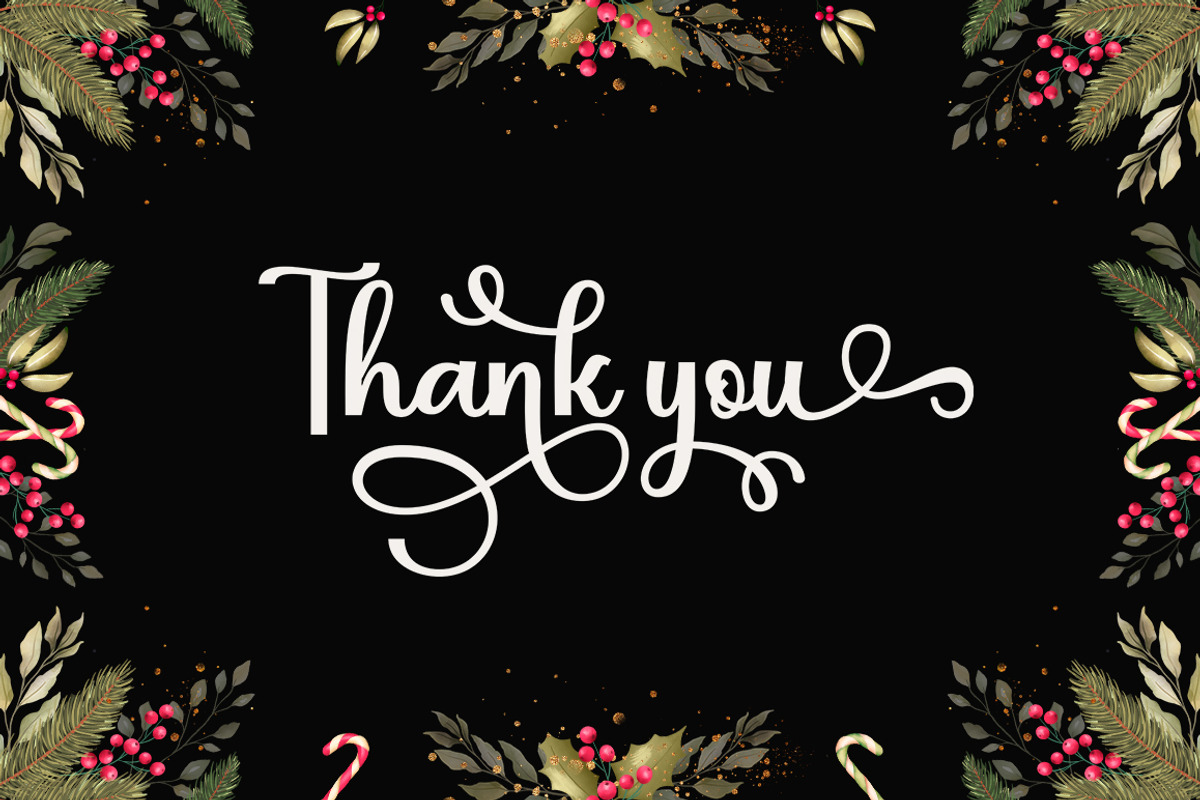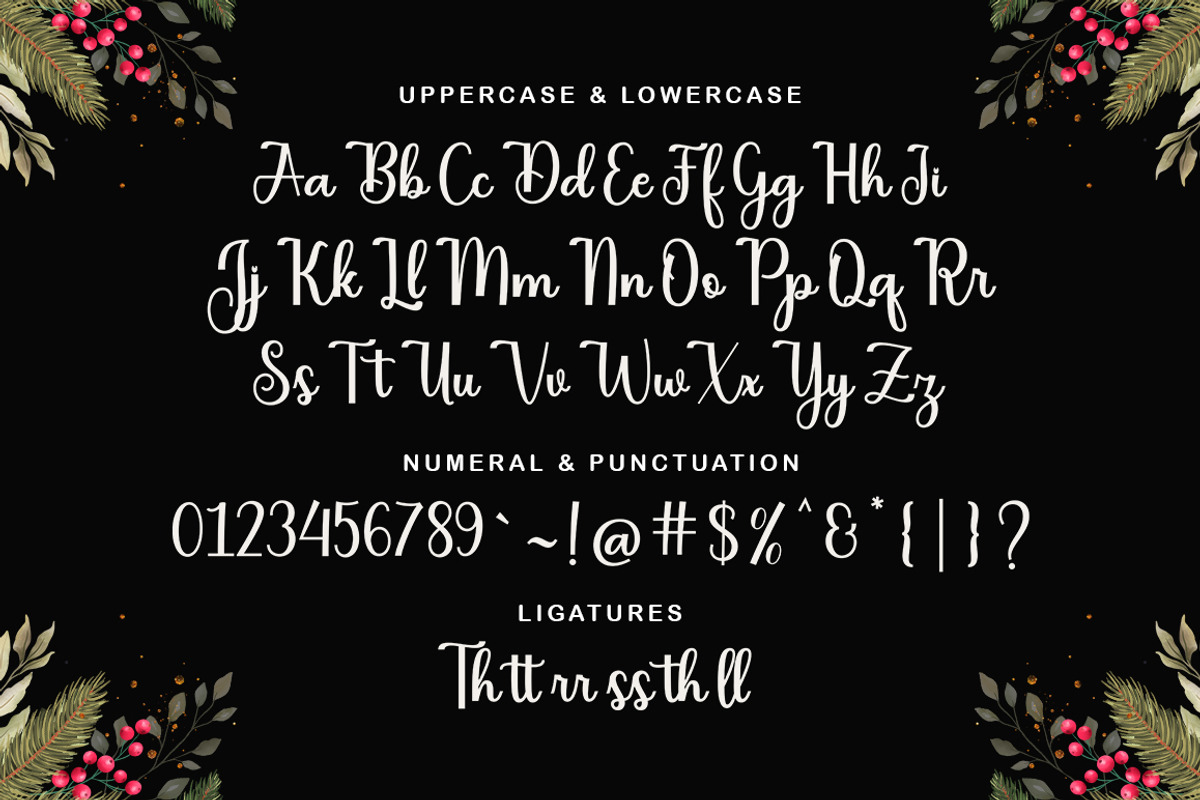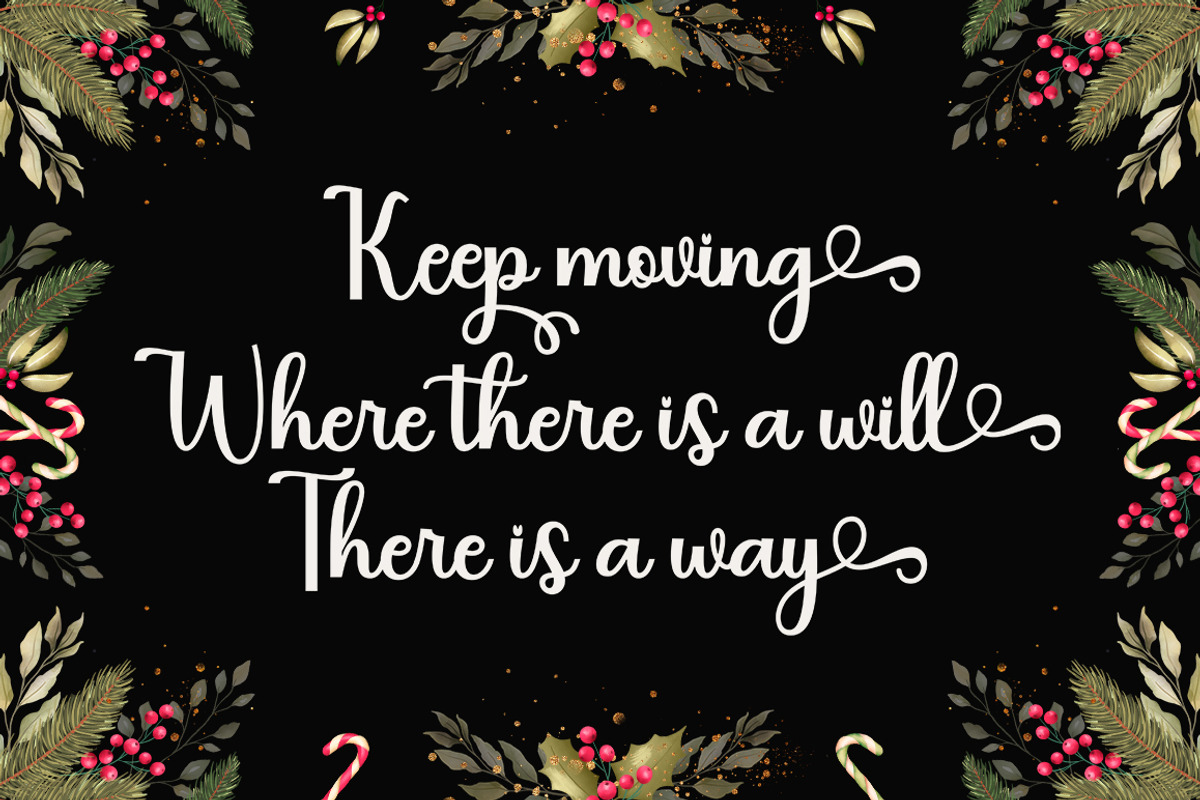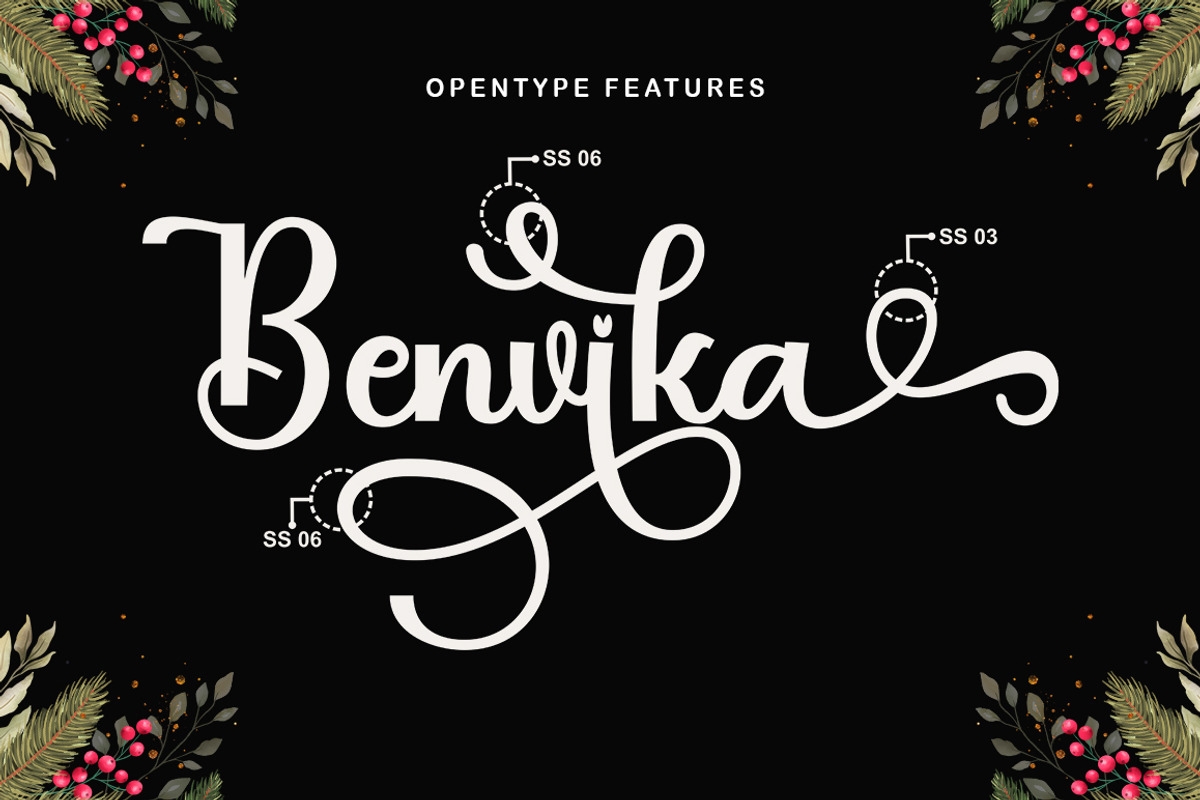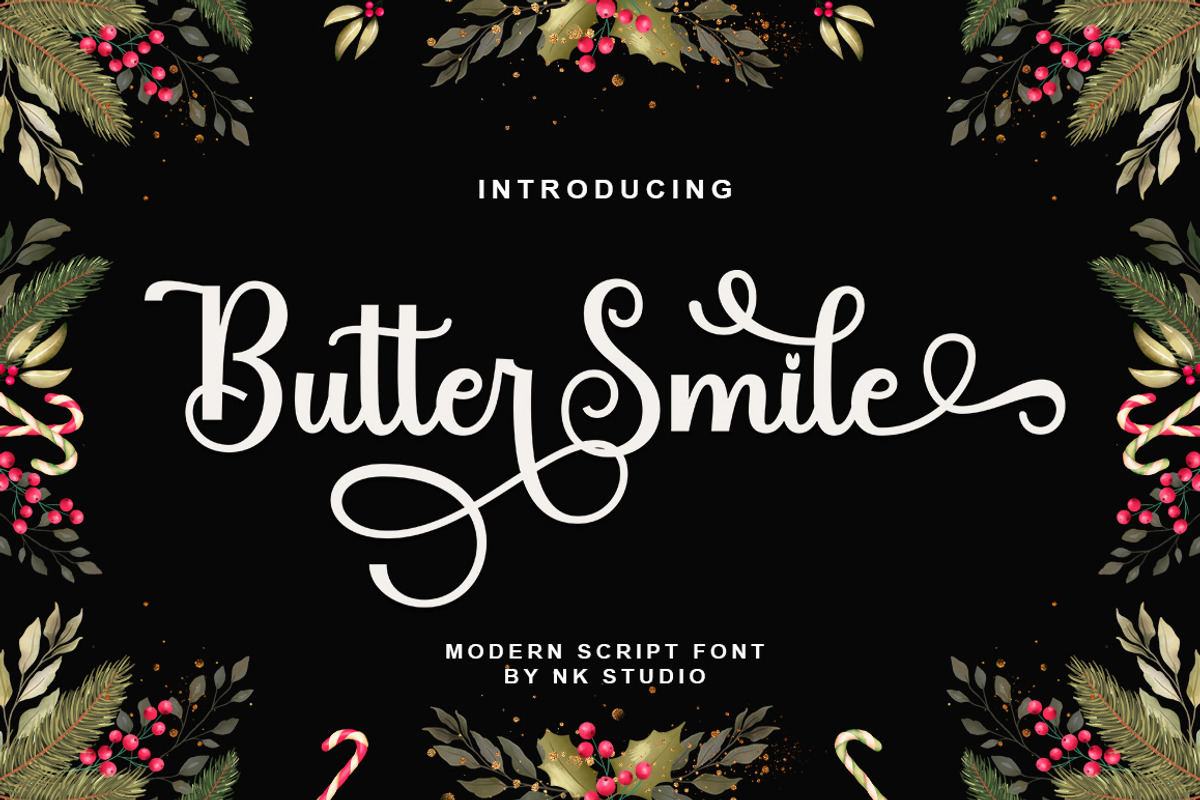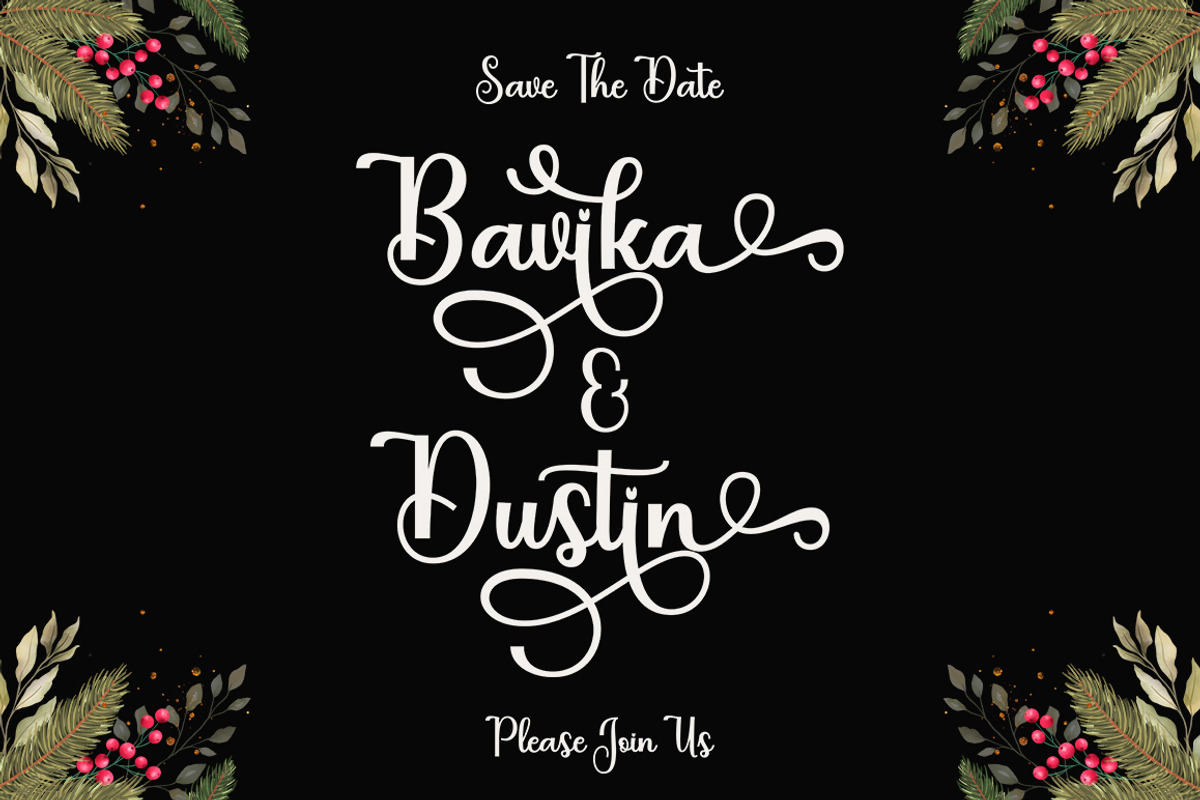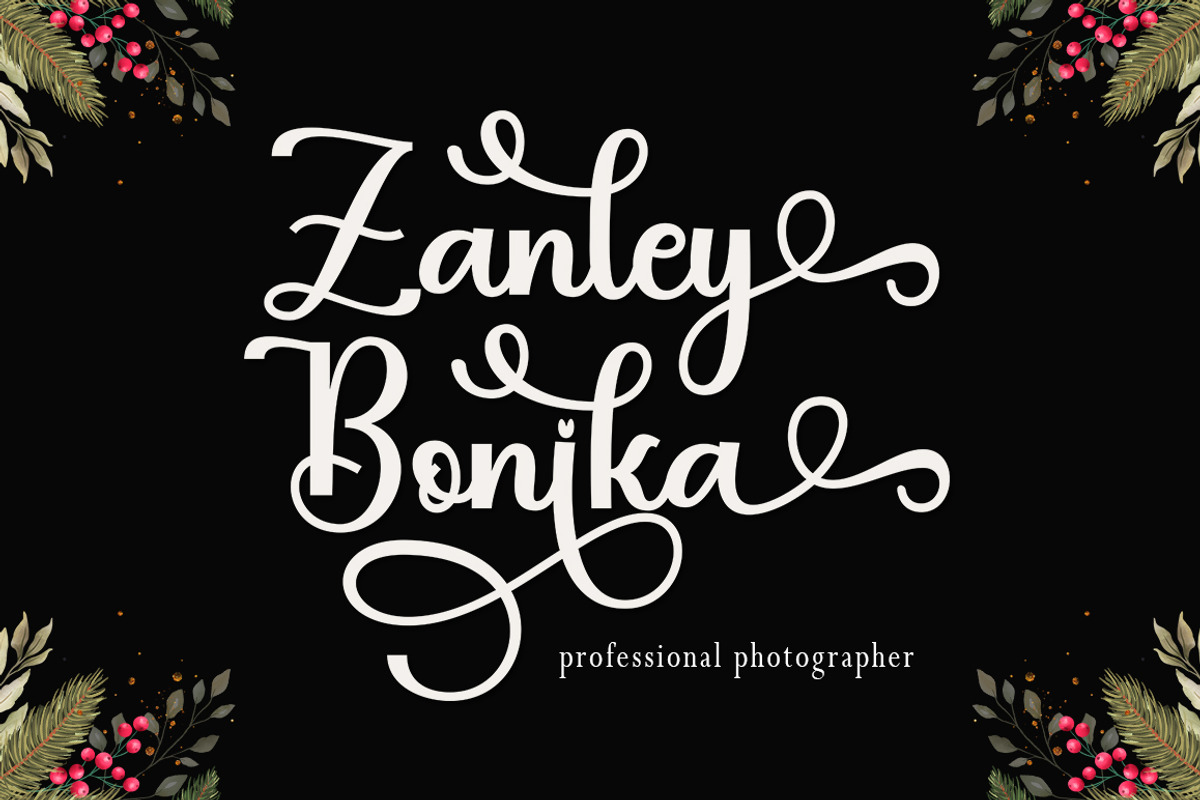
Butter Smile
Butter Smile is a script font that comes with beautiful alternate characters. copper calligraphy mix in handlettering style. Designed to convey an elegant style. Butter Smile is attractive because it is subtle, clean, feminine, sensual, glamorous, simple and very easy to read. Its classic style is very suitable to be applied to all types of formal items such as invitations, labels, menus, logos, fashion, make up, stationery, letterpress, romantic novels, magazines, books, greeting/wedding cards, packaging, labels.
Butter Smile has 400+ glyphs, including multiple language support. It features OpenType with alternate styles, character binding and stroke, which allows you to mix and match letter pairs to match your design making this font look elegant.